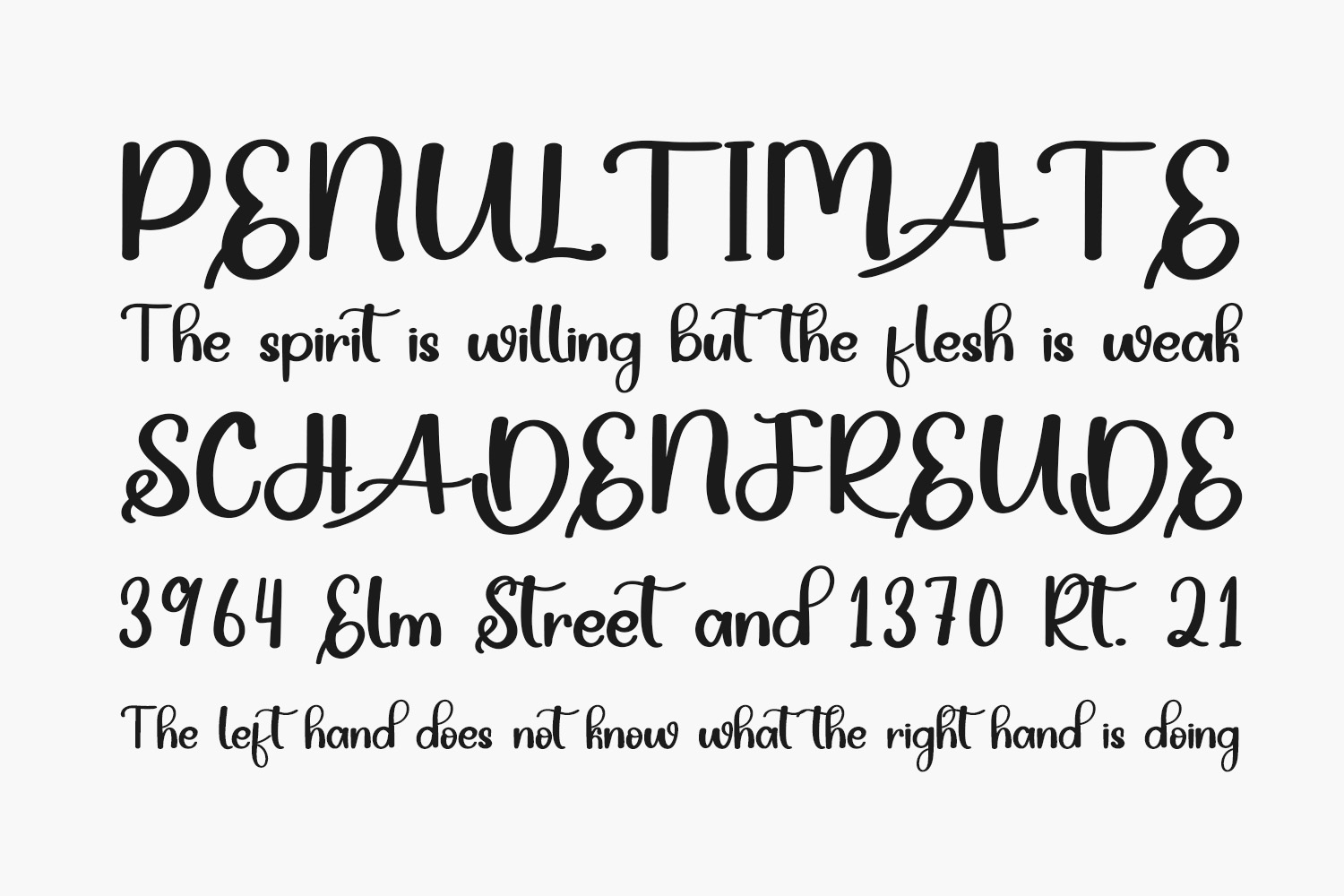
Introducing Venom Free Font, a sleek and captivating handwritten font characterized by its refined finesse, tailor-made for your cherished projects. Immerse yourself in its remarkable and enduring style, and harness its power to craft extraordinary designs that leave a lasting impact. Venom Free Font is free for personal use only. Please purchase the full version for commercial use.
Designed by PiPi Creative